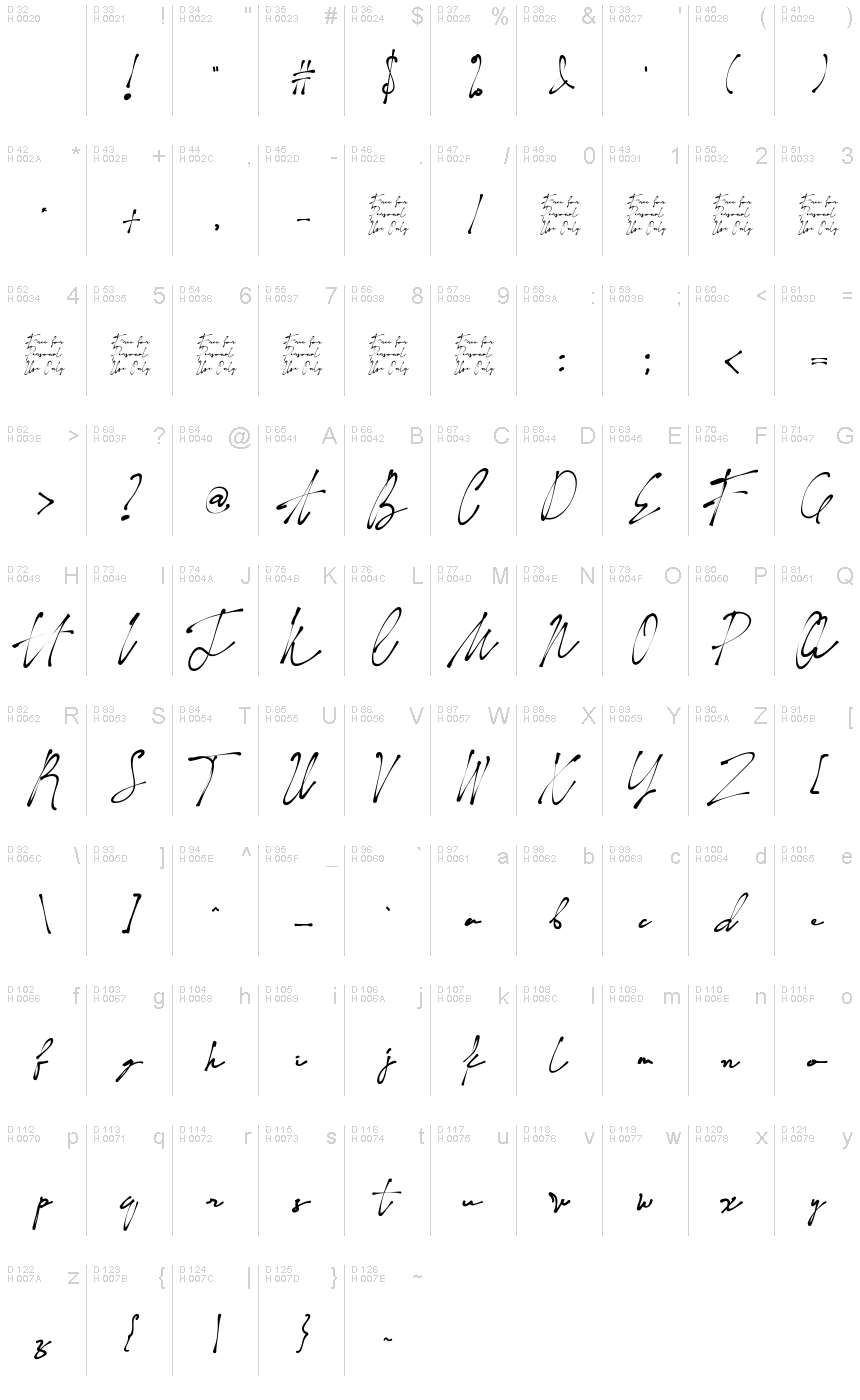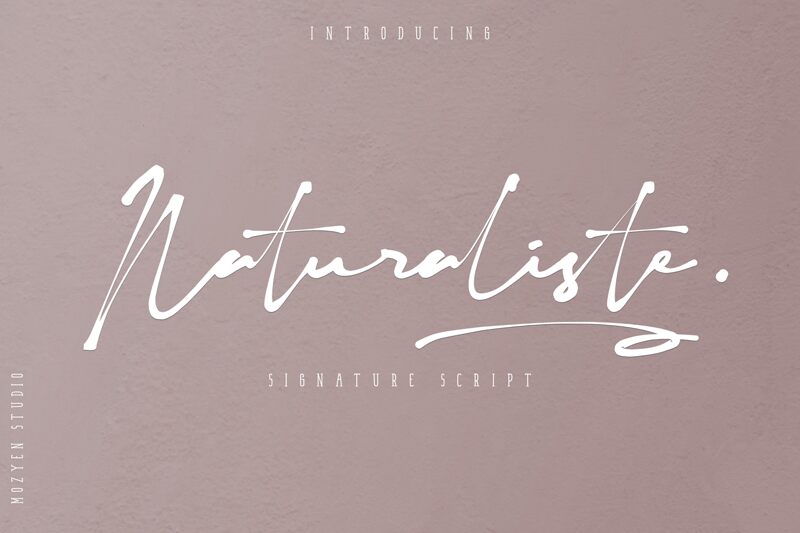
Naturaliste
Naturaliste, crafted by Mozyen Studio, exudes the charm of handwritten artistry. Its fluid strokes and elegant curves evoke a sense of personal touch and organic beauty. The font's light touch conveys an air of grace and subtlety, making it ideal for designs that require a hint of sophistication without overwhelming the senses.
The style lends itself beautifully to invitations, branding projects, and editorial work where a human touch can transform the ordinary into something memorable. Whether it's to add a whisper of elegance to a logo or to give your project an authentic feel, Naturaliste gracefully bridges the gap between digital precision and the timeless allure of handcrafted expression.